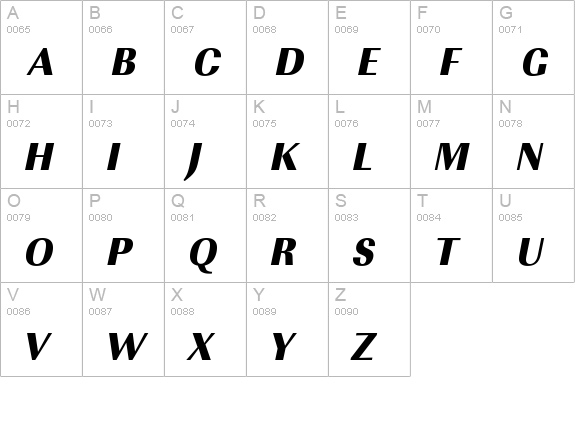
URWImperialTOTUltBolNar Oblique Font Details
URWImperialTOTUltBolNar Oblique is a distinctive, italic variant in the URWImperialTOTUltBolNar typeface family \xE2\x80\x94 well suited to design and typography projects.
URWImperialTOTUltBolNar Oblique is a modern and elegant font that exudes sophistication and style. Its bold and narrows strokes give it a unique and eye-catching appearance, perfect for adding a touch of class to any design project. Whether used for headlines, logos, or branding materials, this font commands attention and leaves a lasting impression. And the best part? URWImperialTOTUltBolNar Oblique is available for free download at FontsMarket.com. So, you can easily enhance your creations with this stunning typeface without breaking the bank. Don't miss out on the opportunity to elevate your designs with this exquisite font today!